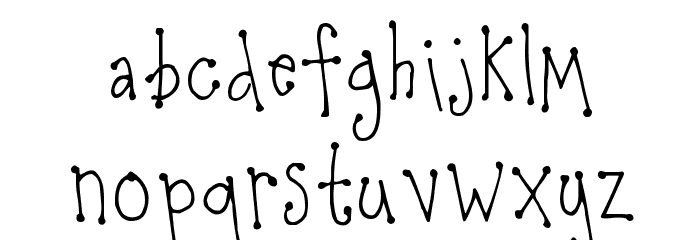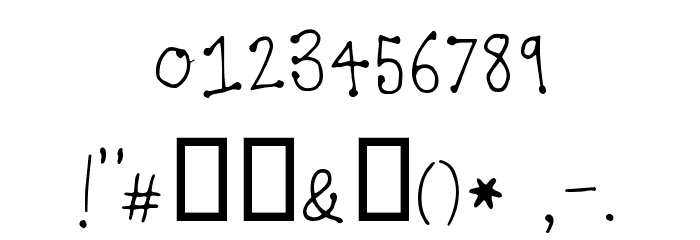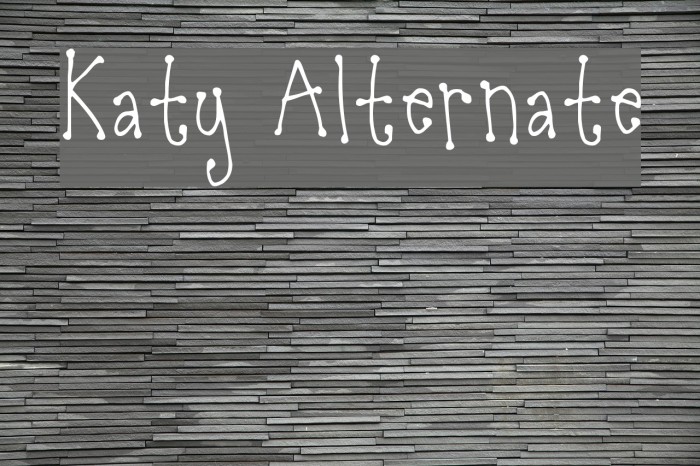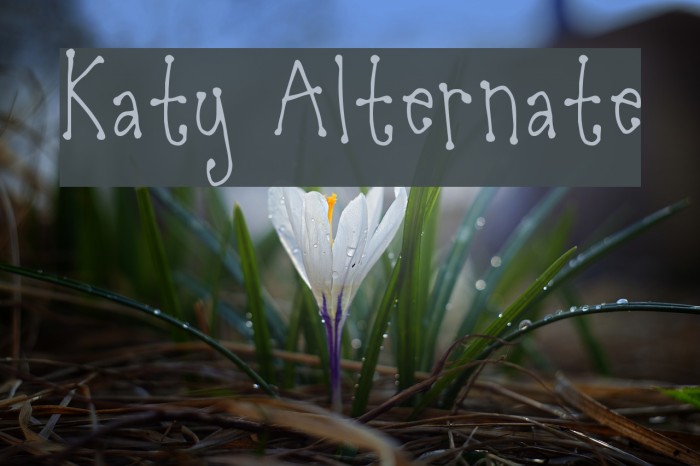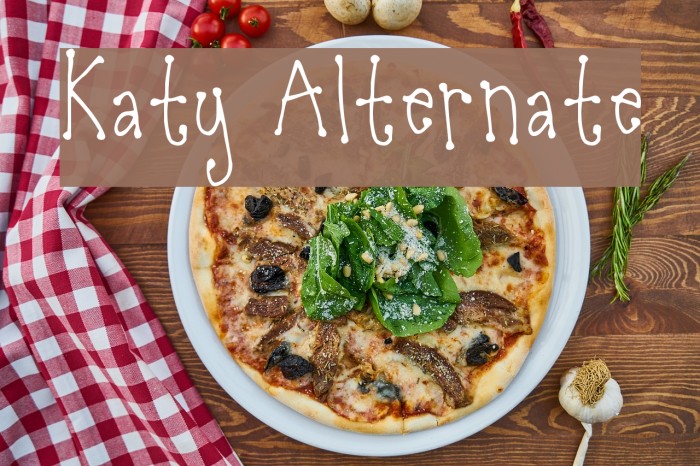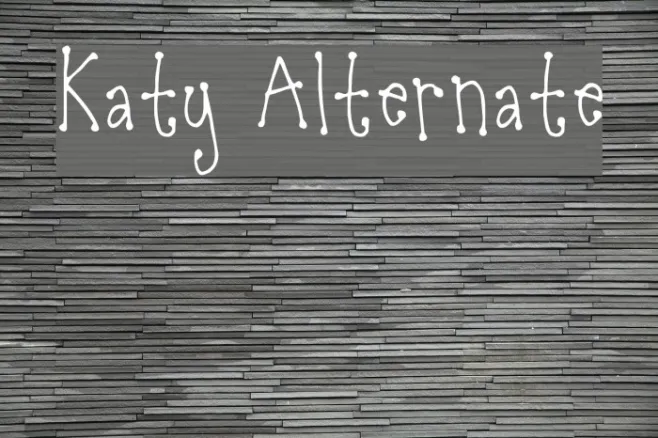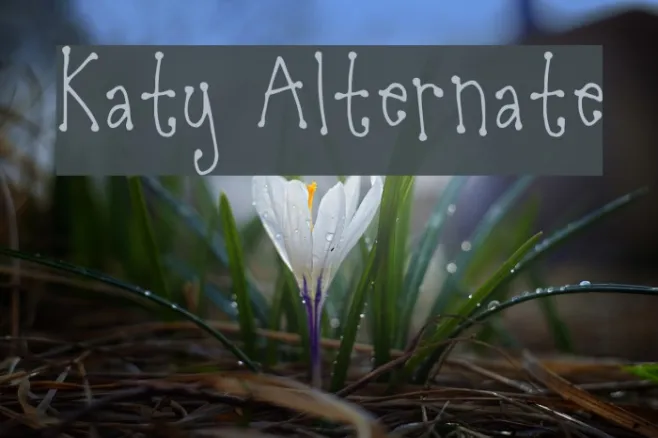
Katy Alternate Font
This font features a playful and whimsical design, characterized by its uneven strokes and quirky, hand-drawn appearance. The letters have a unique, organic feel with irregular line thicknesses that add to its charm. The uppercase and lowercase letters maintain a consistent style, with rounded edges and a slightly tilted orientation, giving it a casual and friendly look. The numerals and special characters follow the same playful aesthetic, making it suitable for creative and informal projects.
A playful, hand-drawn font with quirky, uneven strokes.
- Proposed Projects: Ideal for children's books, greeting cards, playful branding, and creative posters.
- Use Case: Headlines, Logos, Creative projects